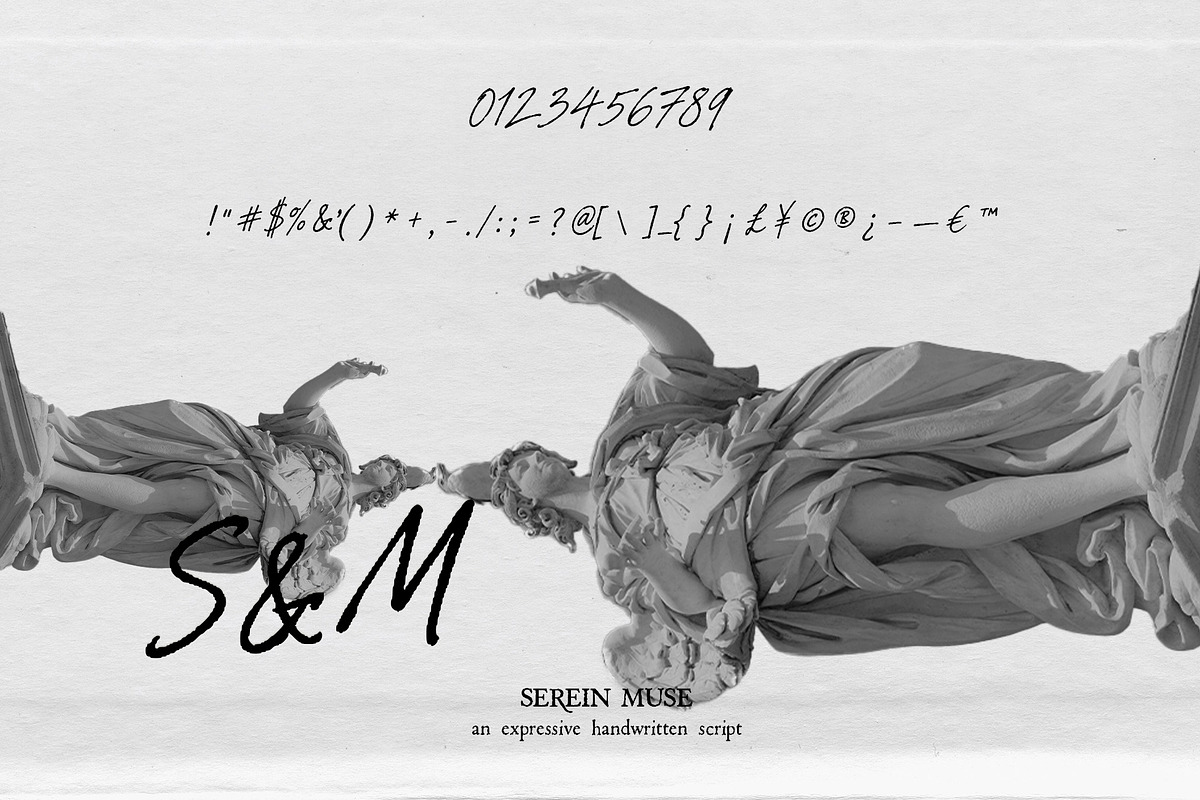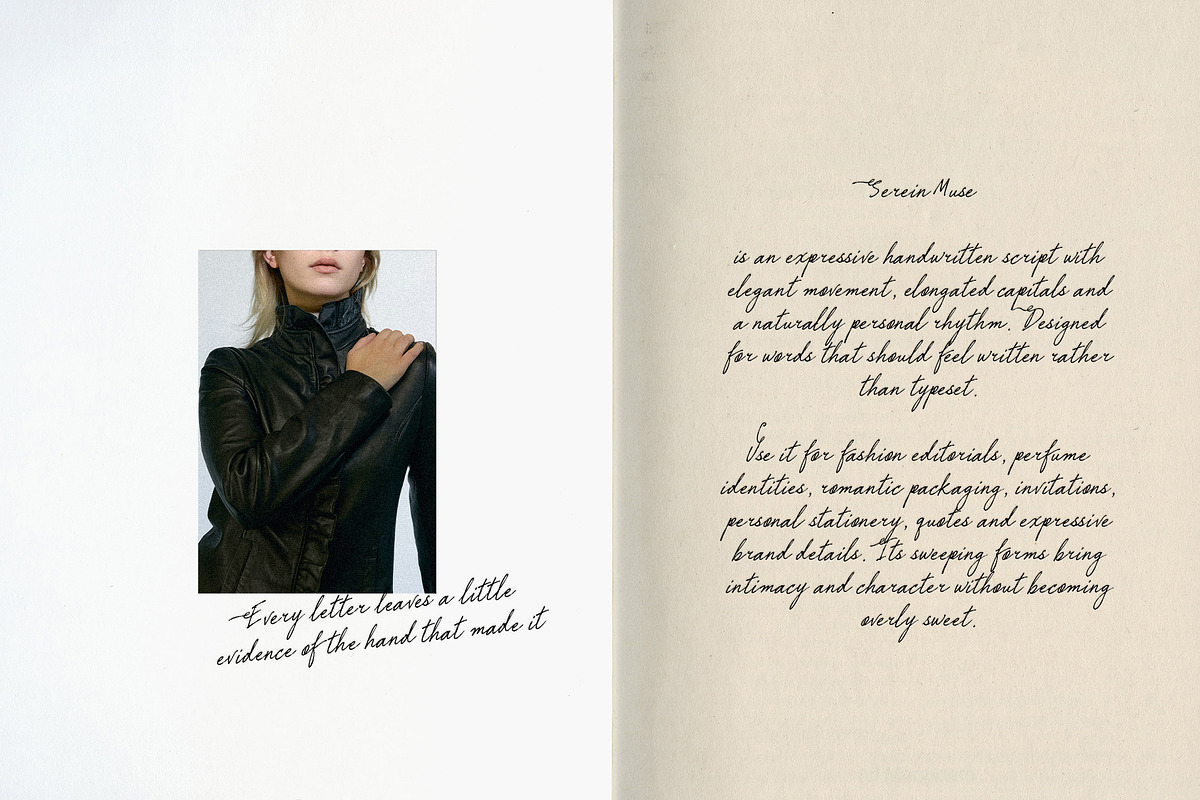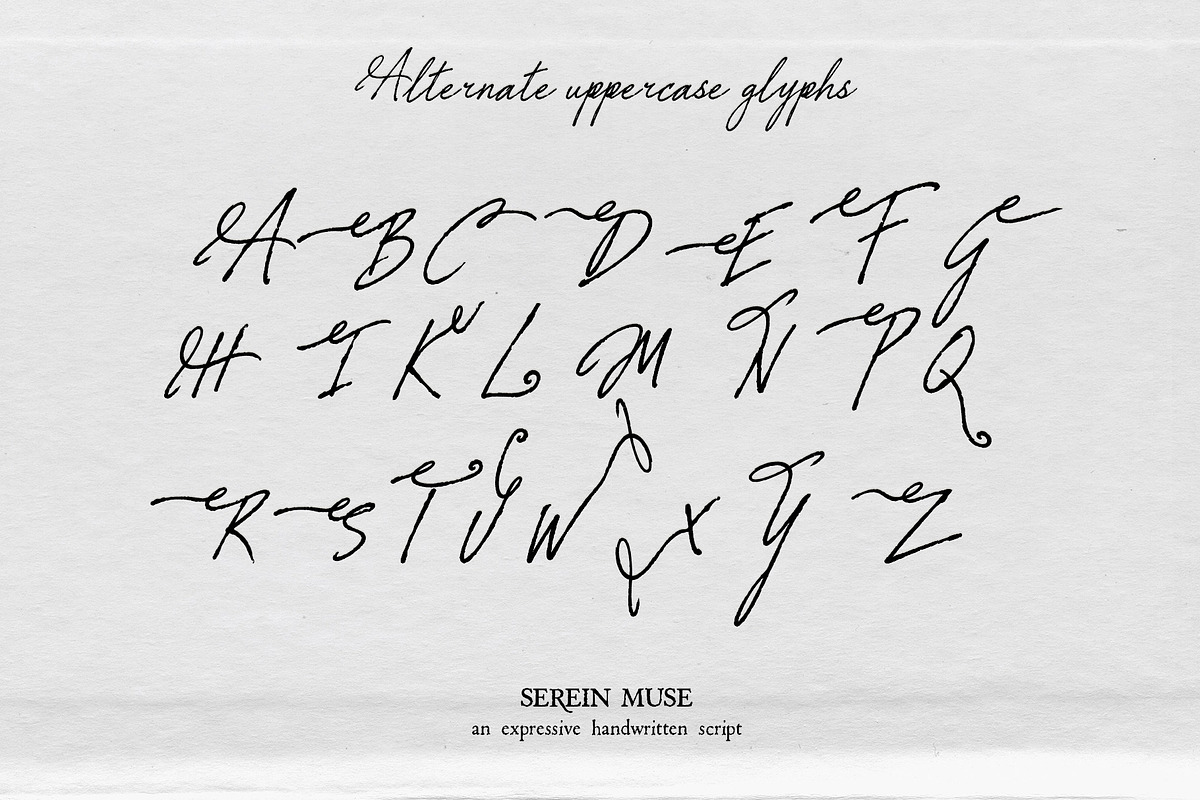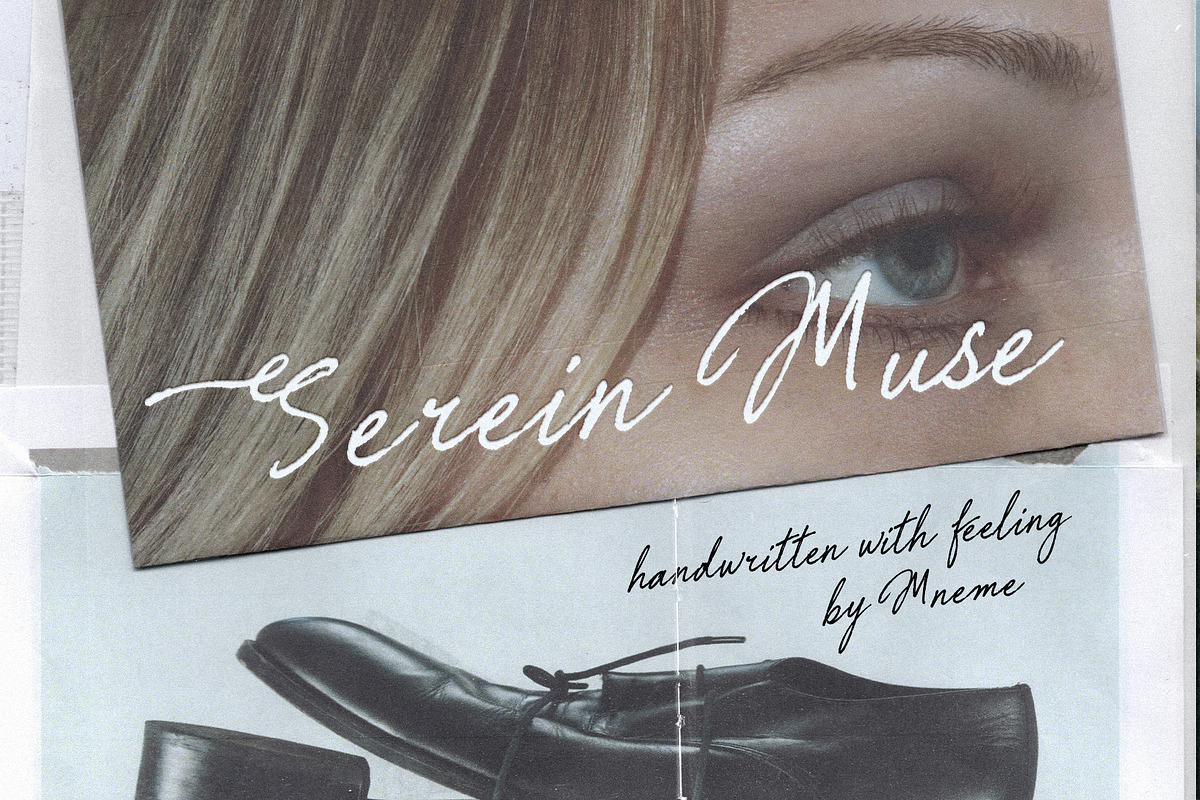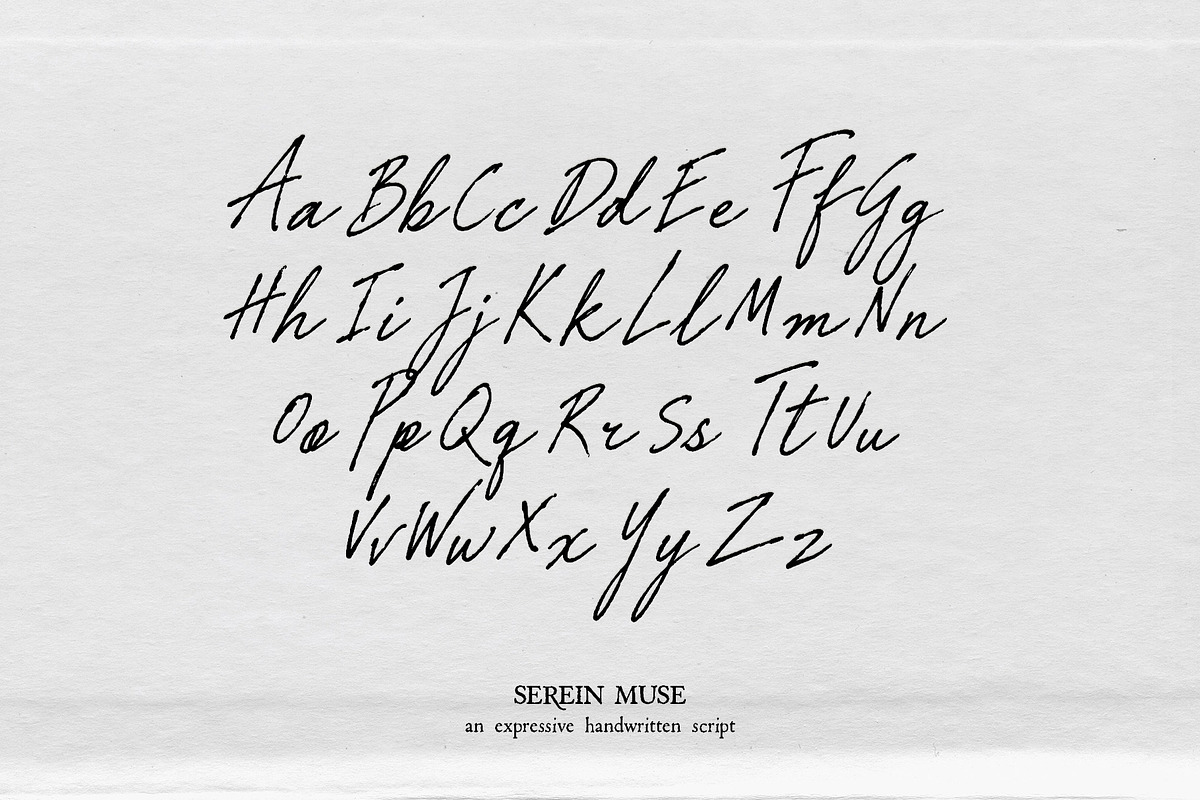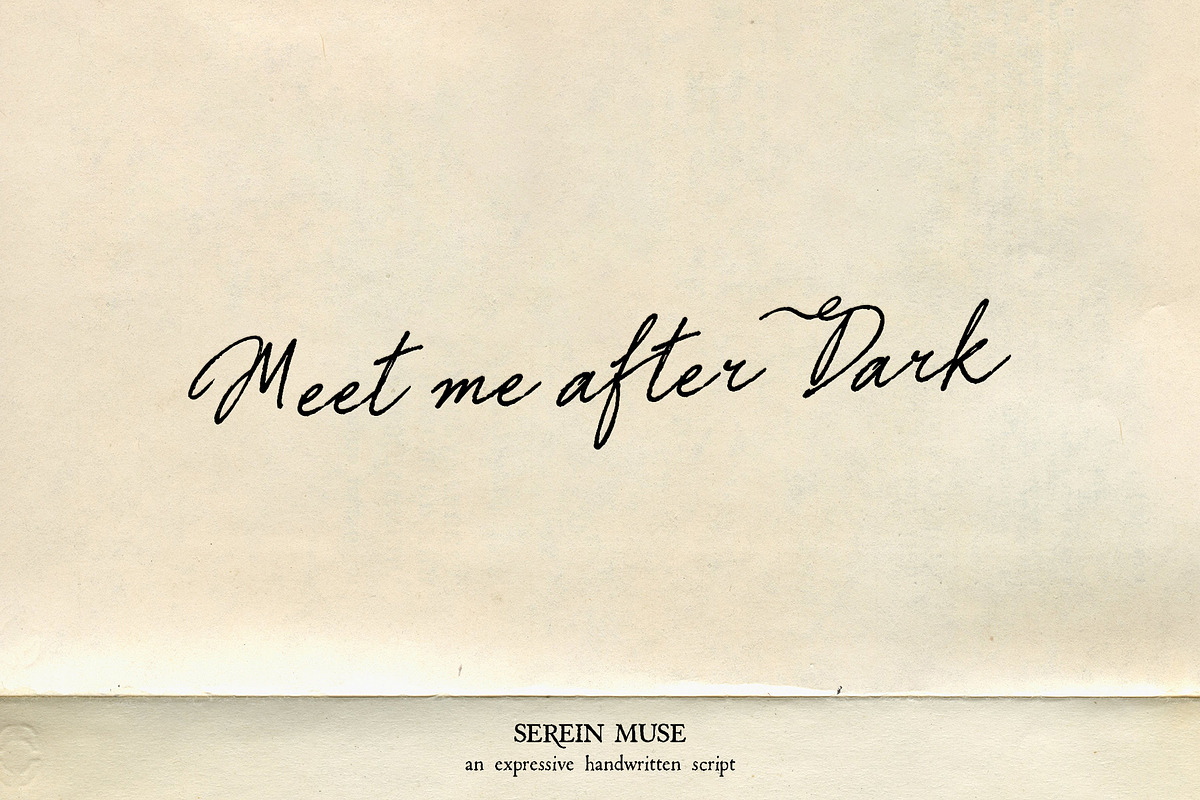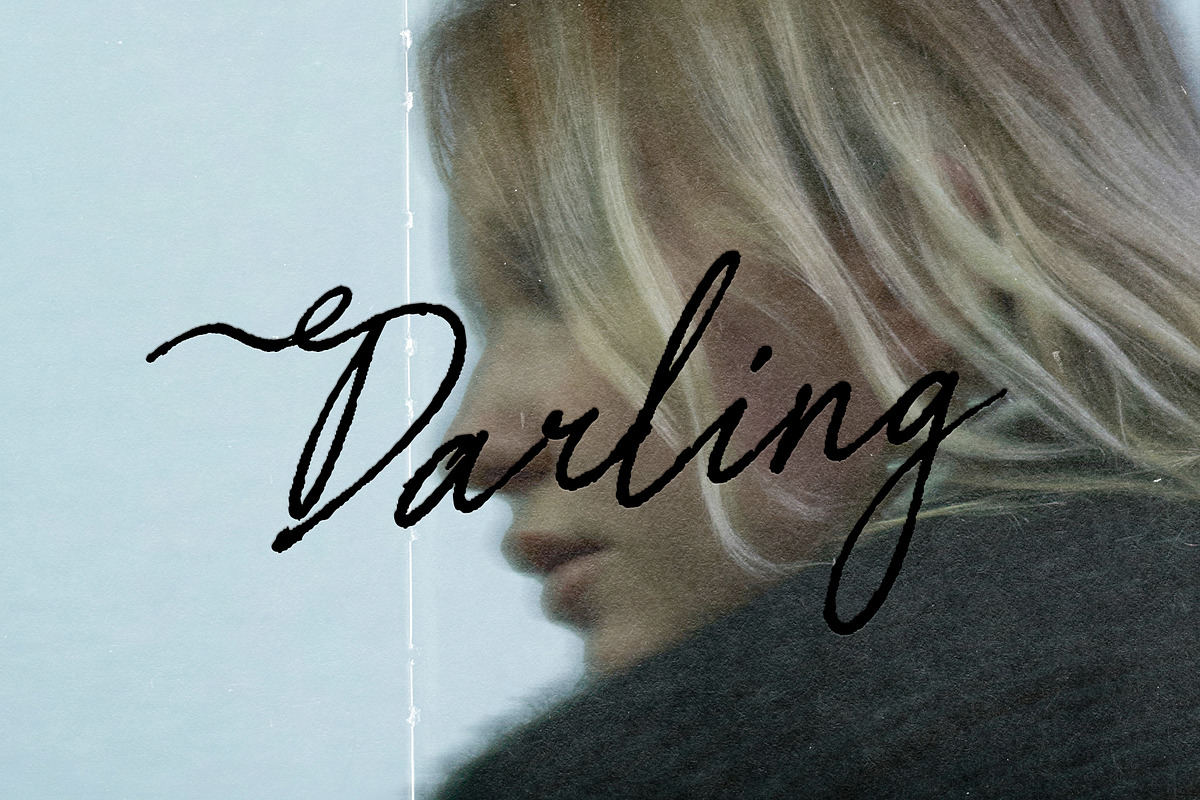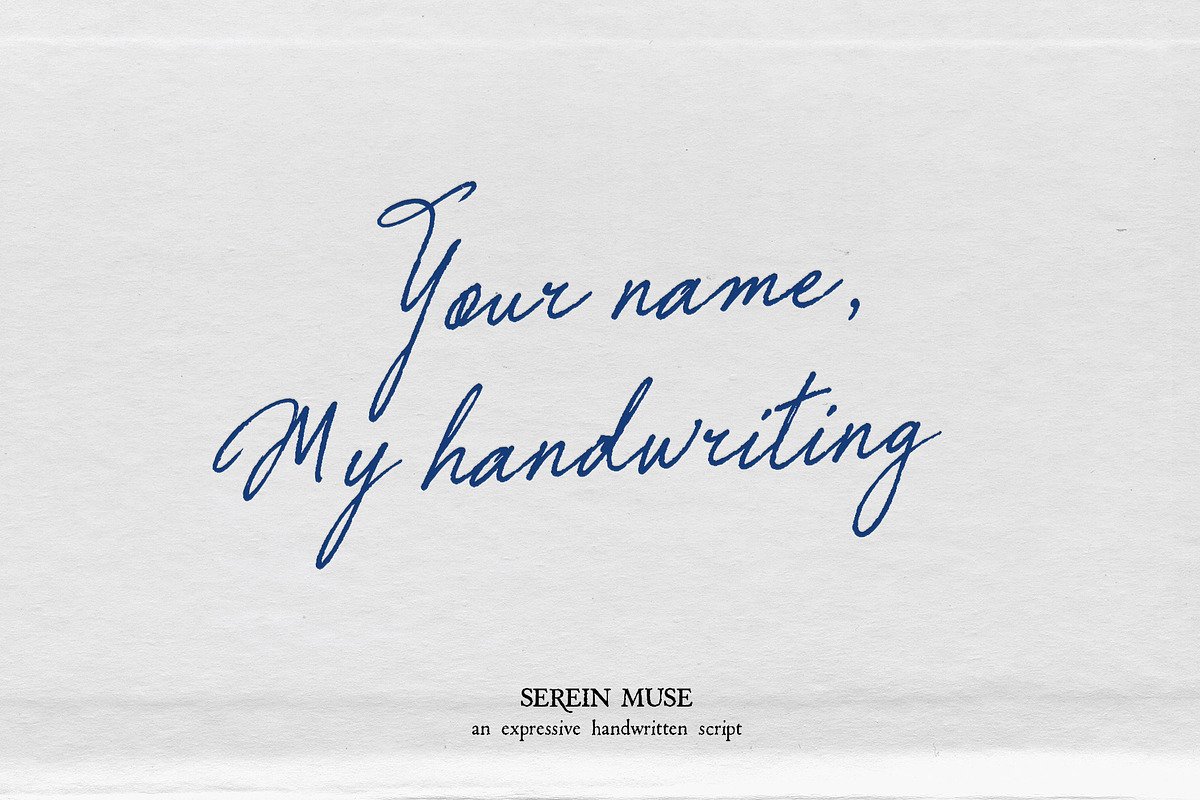
Serein Muse Handwritten Script
Serein Muse is an expressive handwritten script with elegant movement, elongated capitals, and a naturally personal rhythm. Designed for words that should feel written rather than typeset.
Use it for fashion editorials, perfume identities, luxury branding, romantic packaging, invitations, stationery, quotes, posters, and expressive brand details. Its sweeping forms bring intimacy and character without becoming overly sweet.
uppercase alternates
elegant decorative capitals